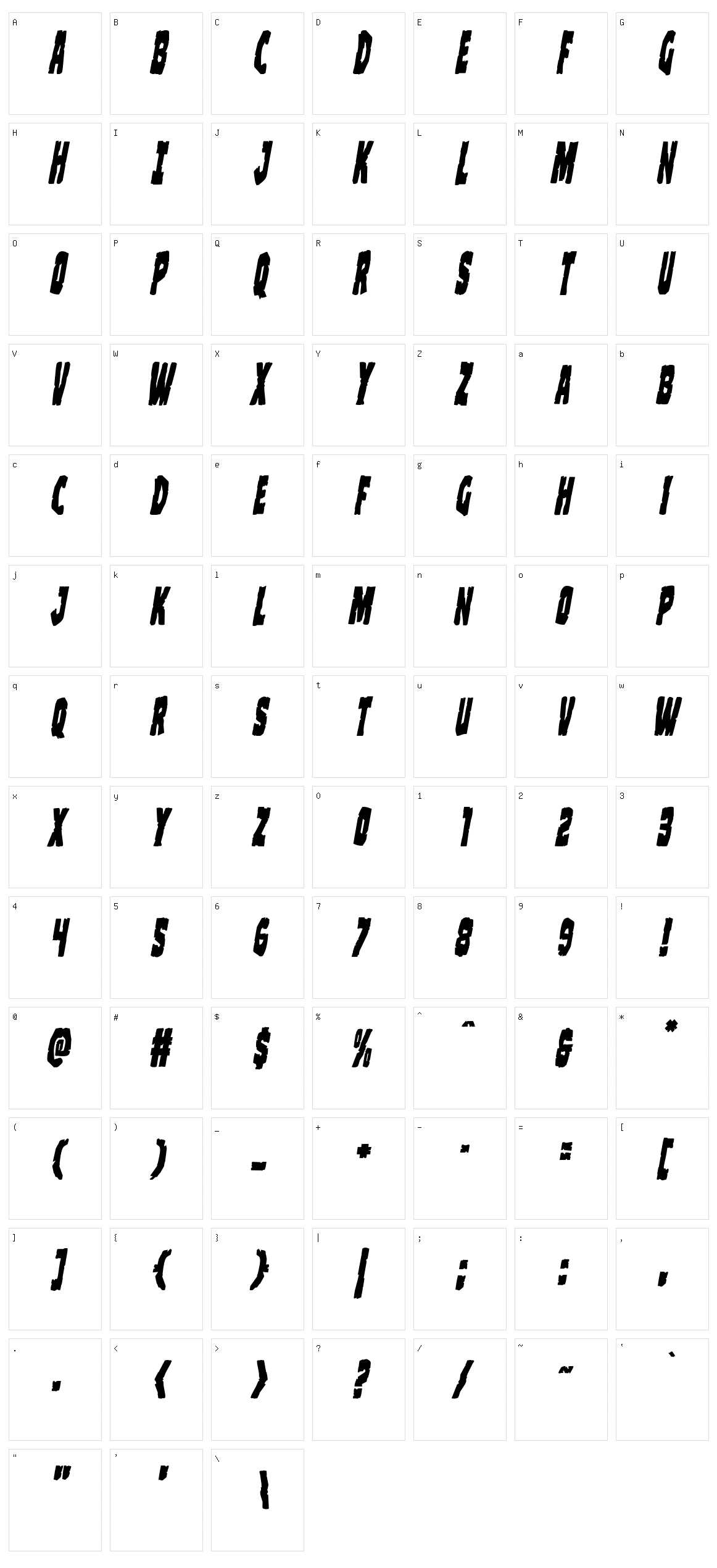
The free font Clubber Lang is carefully designed by Iconian Fonts, showcasing a thoughtful balance of creativity and usability and falls under the Cartoon font style. When you download the ZIP file, it contains only 628.58 KB of font files, making it lightweight and quick to download. Please review the license details below to understand permitted usage and distribution rights. If license information is not available, we recommend using this font for personal projects only or contacting the author directly for commercial usage permissions.
This font comes with the following 11 versions: Regular, Italic, Condensed, Condensed Italic, Expanded, Expanded Italic, 3D, 3D Italic, Rotate, Rotalic and Leftalic.